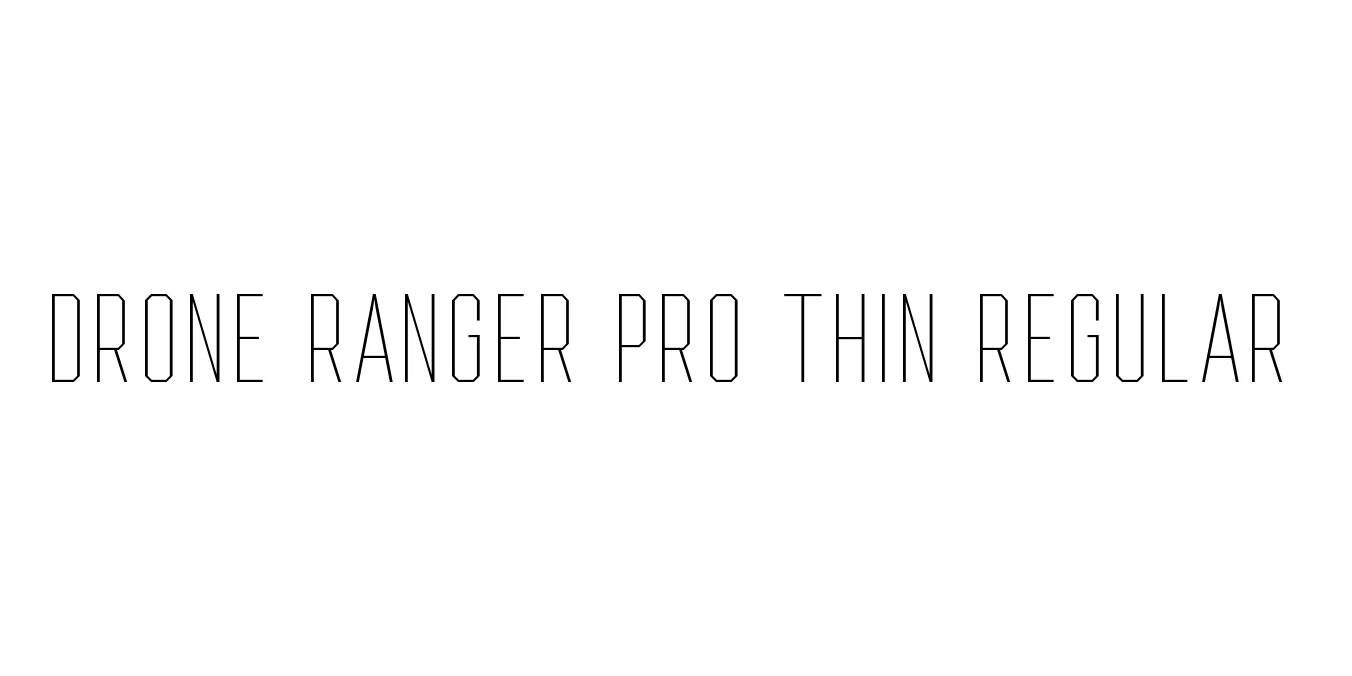
Drone Ranger Pro Thin Regular
Designed by Jay de Lury
Drone Ranger Pro Thin Regular is a meticulously crafted geometric sans-serif font that embodies a sleek, industrial aesthetic. Developed as part of a larger family by designer Jay de Lury, this weight focuses on precision and technical clarity, drawing inspiration from mechanical engineering and futuristic interface design. Its clean, open apertures and uniform stroke weights make it a staple for designers looking to convey a sense of modernism and high-tech sophistication.
The Thin Regular variation offers a minimalist alternative to the heavier, more rugged weights in the Drone Ranger Pro collection. It excels in environments where subtle elegance and legibility are required, such as architectural plans, high-end editorial content, and contemporary digital displays. By stripping away visual bulk, it allows the geometric structure of the letterforms to stand out, making it an ideal choice for cutting-edge branding and sophisticated typography projects.
Drone Ranger Pro Thin Regular Best Uses
Highly effective for HUD displays, tech dashboards, and mobile app interfaces.
Perfect for minimalist logos and corporate identities within the aerospace or tech sectors.
Excellent for clean sub-headings and sophisticated body text in modern magazines.